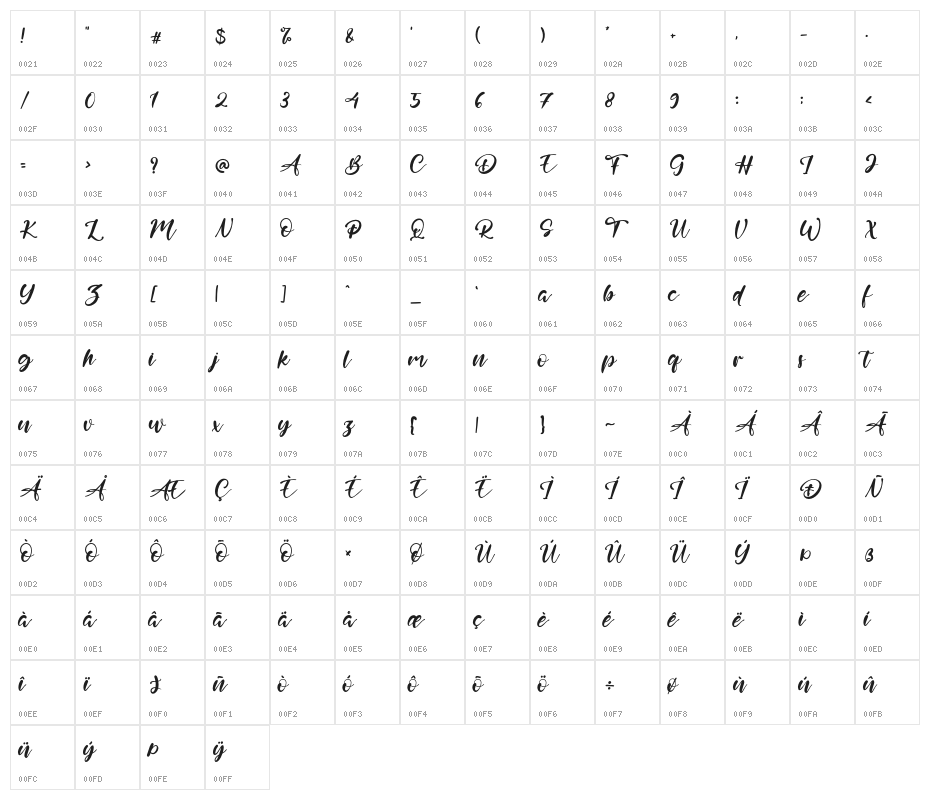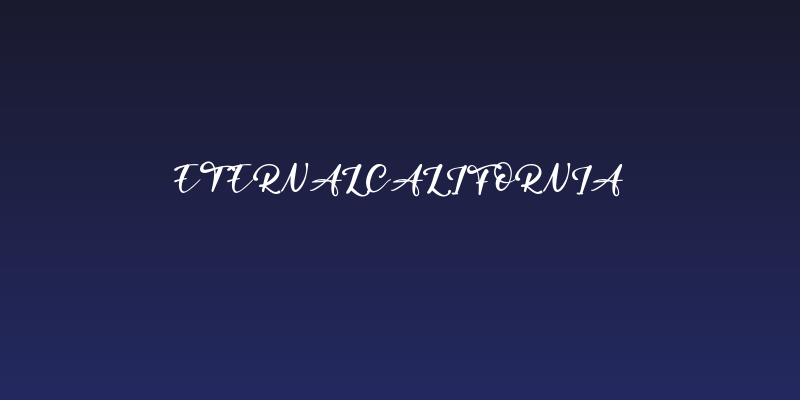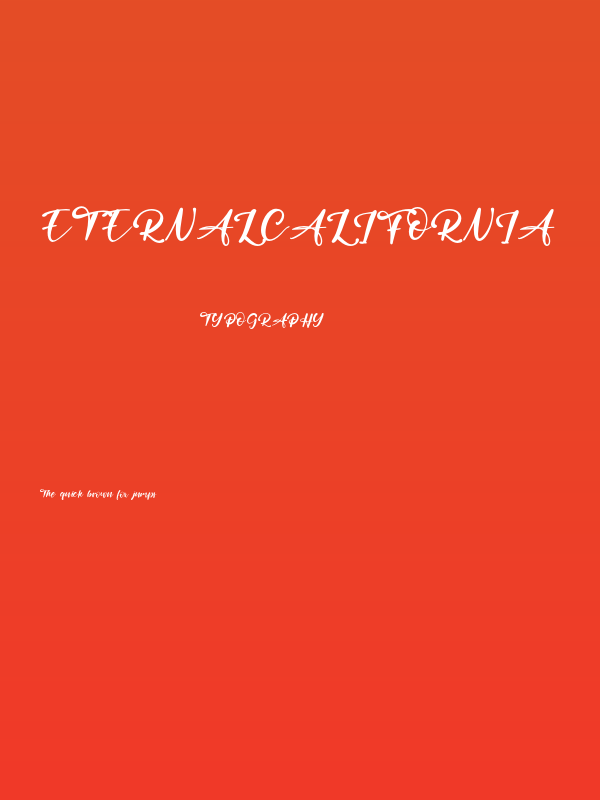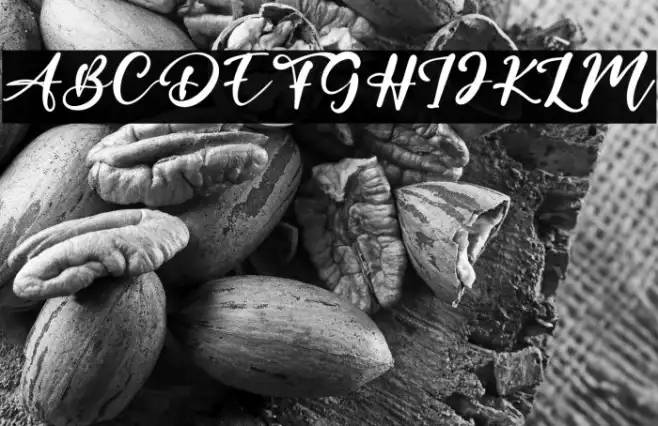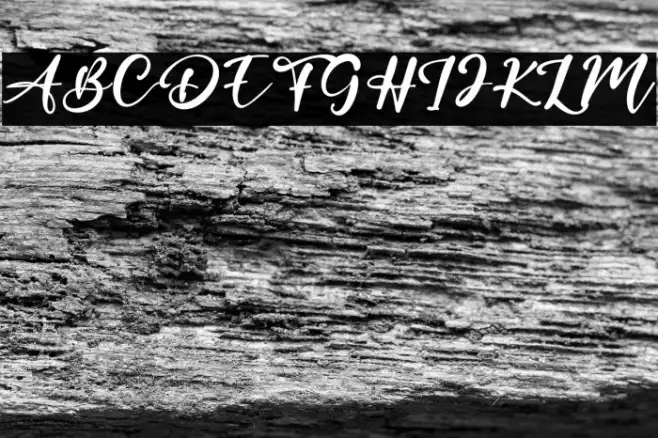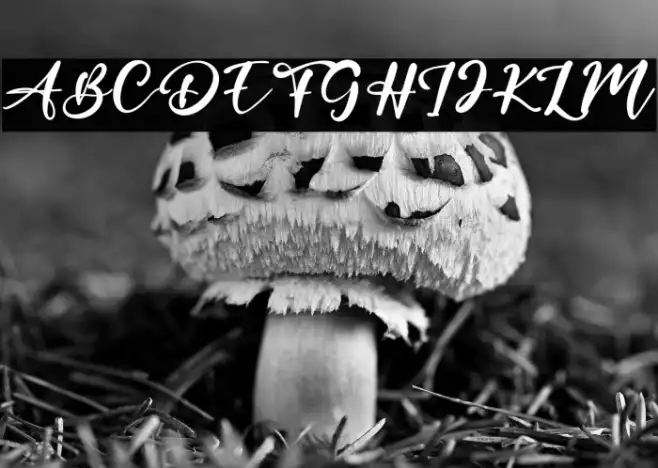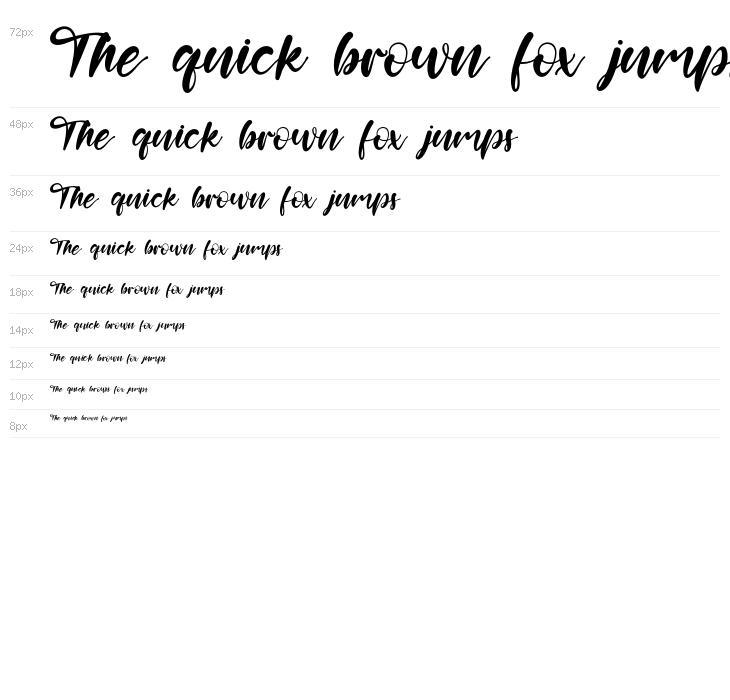
EternalCalifornia Font
EternalCalifornia Description
This font features a flowing, cursive style with elegant, sweeping strokes that give it a handwritten appearance. The characters are connected, enhancing the script-like quality, while maintaining readability. The uppercase letters are bold and expressive, with distinctive loops and flourishes that add a touch of sophistication. The lowercase letters are more compact but still retain the fluidity and grace of the overall design. Numbers and special characters are consistent with the script style, offering a cohesive look across all elements. The font's artistic flair makes it suitable for creative and decorative applications.